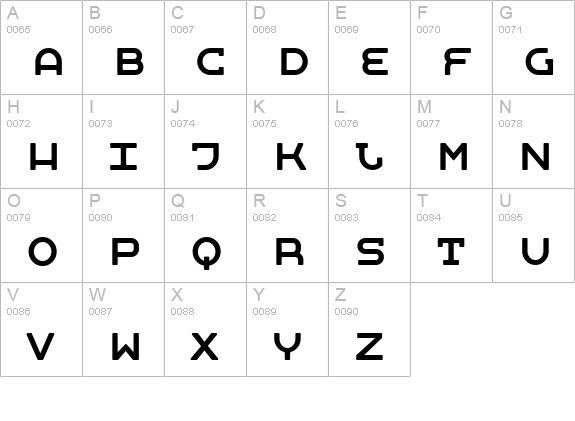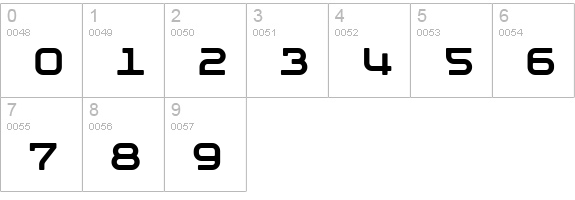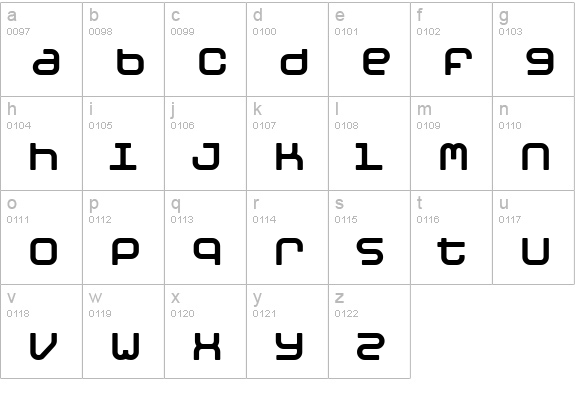
Moby regular Font Details
Moby regular is the standard, neutral variant in the Moby typeface family \xE2\x80\x94 well suited to general body text, paragraphs, and standard typographic work.
Moby Regular font is a versatile and modern typeface that is perfect for a wide range of design projects. With its clean lines and balanced proportions, Moby Regular exudes a sense of sophistication and professionalism. This font is ideal for both display and body text, making it a great choice for everything from logos to brochures to web design. One of the best things about Moby Regular font is that it is completely free to download. You can get your hands on this stylish and functional typeface at FontsMarket.com without spending a dime. Whether you're a designer looking to add a fresh new font to your collection or a business owner in need of a polished look for your branding, Moby Regular is sure to impress. Don't miss out on the opportunity to enhance your projects with this fantastic font – download Moby Regular today!